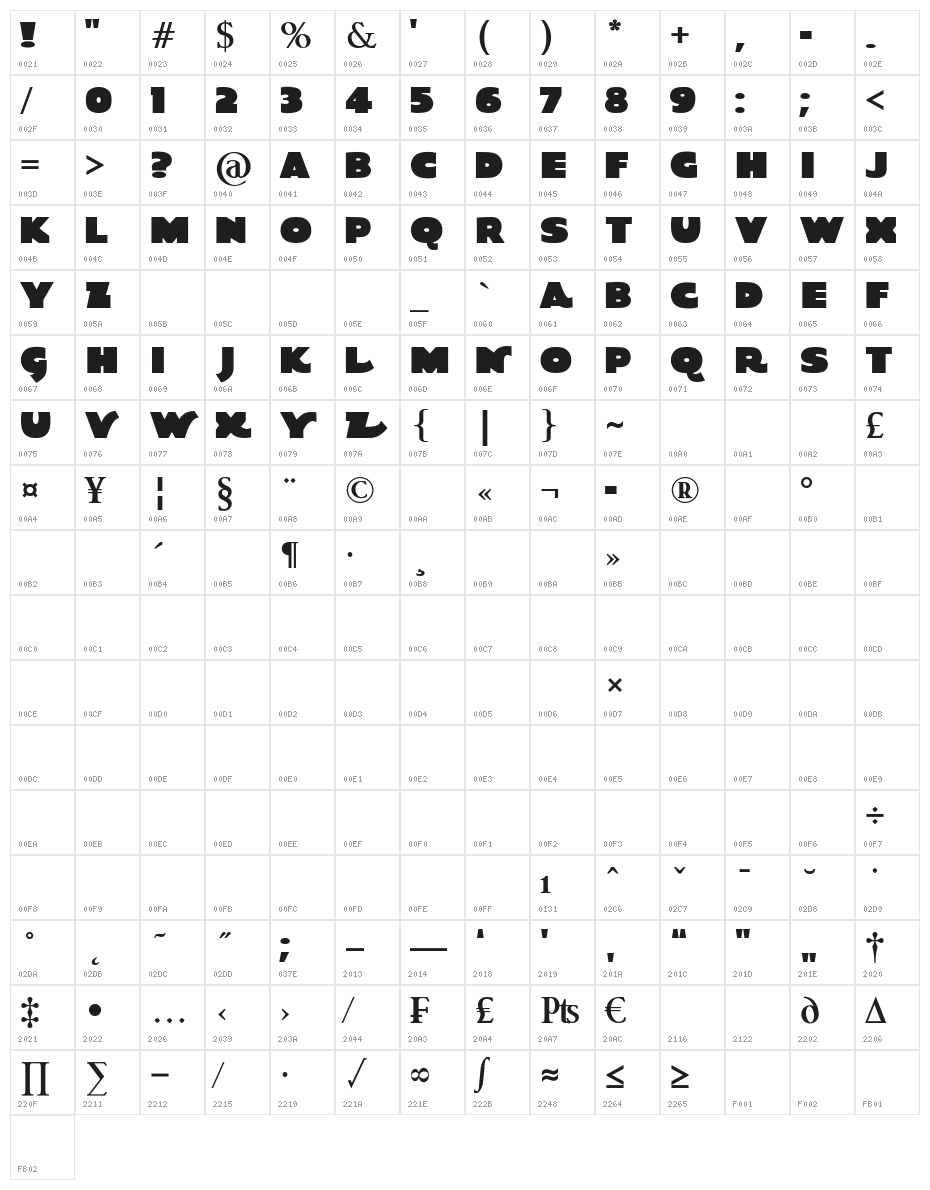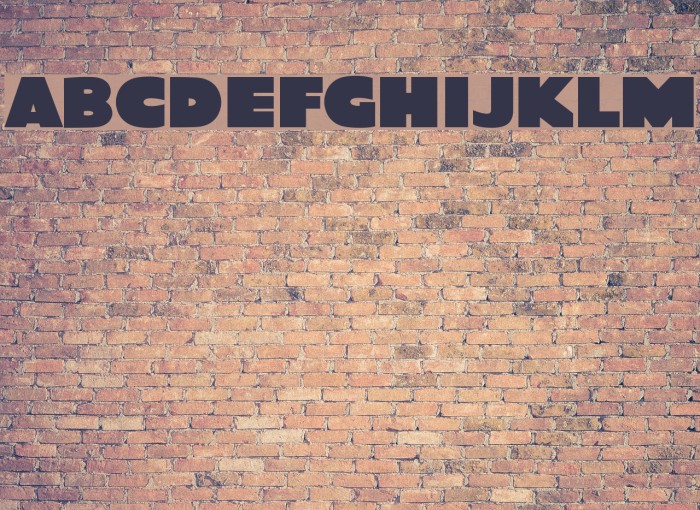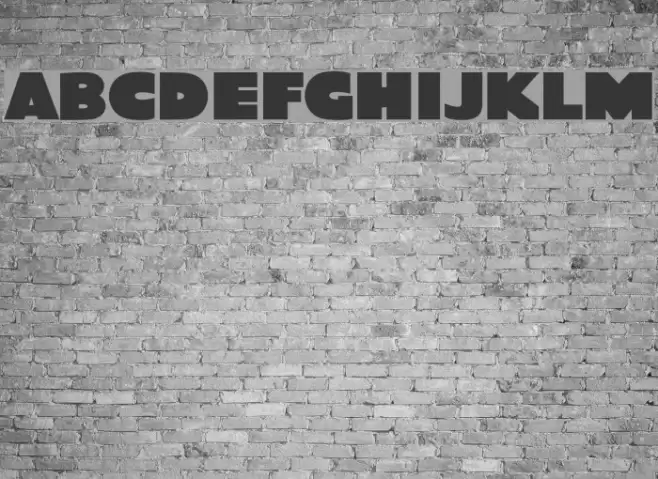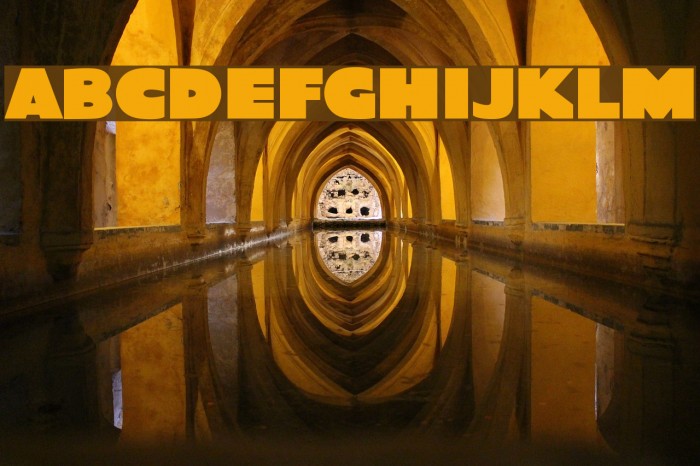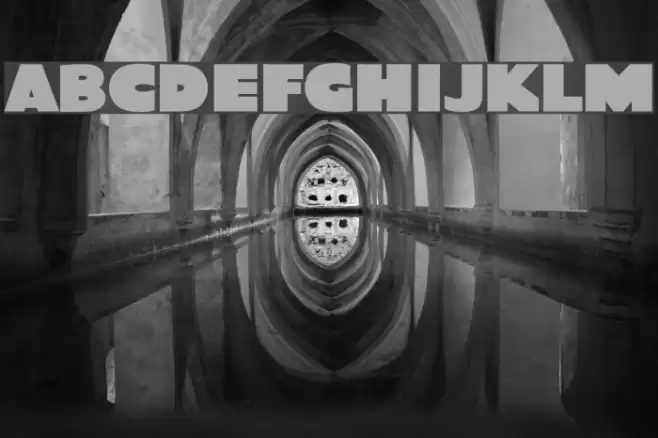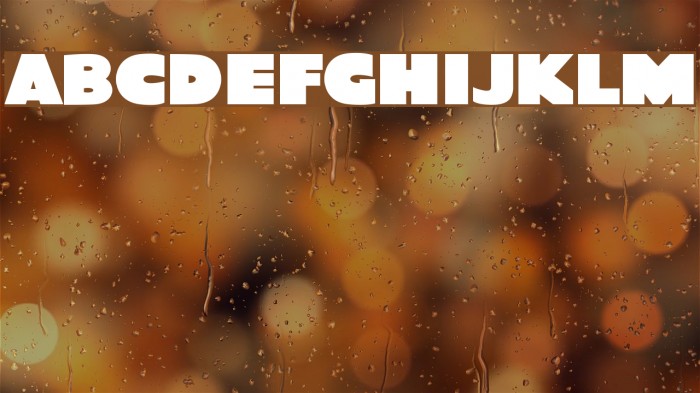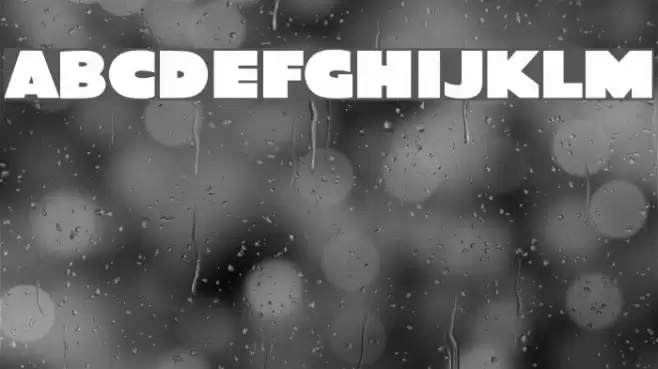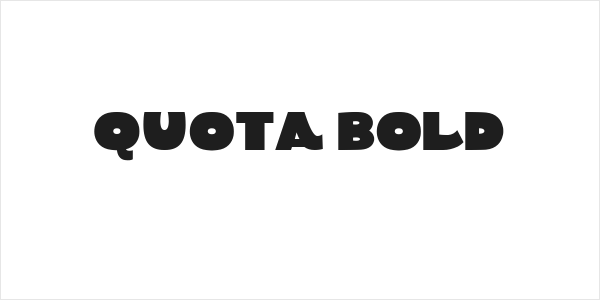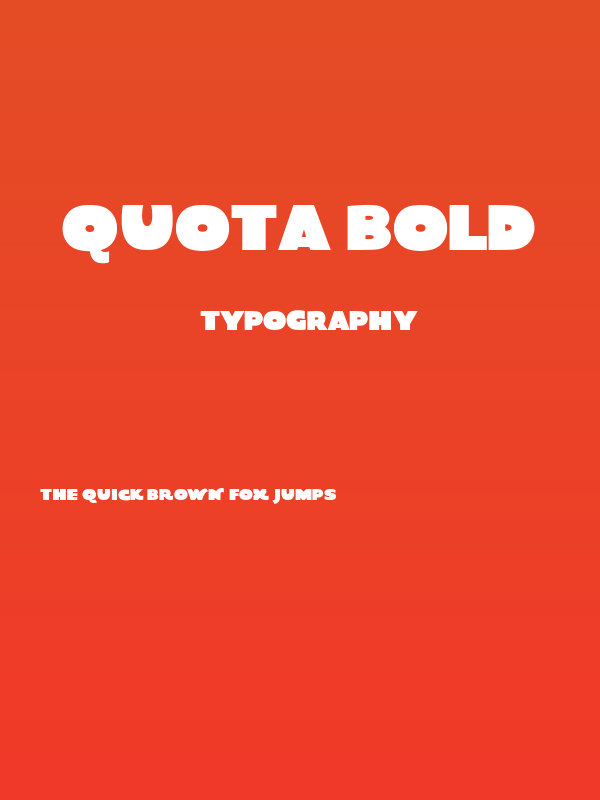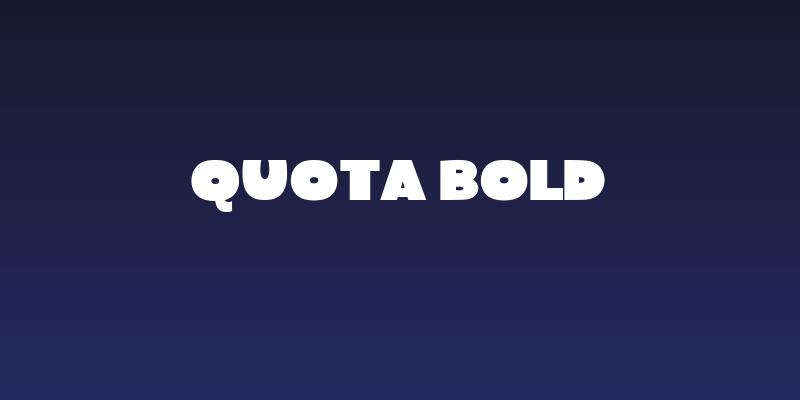
Quota Bold Font
Quota Bold Description
This font features a bold and impactful style with thick, uniform strokes that convey strength and assertiveness. The characters are wide and have a slightly condensed appearance, giving them a powerful presence on the page. The uppercase letters are particularly striking, with a geometric influence that adds a modern touch. The lowercase letters maintain the same boldness, ensuring consistency across text. Numbers and special characters are equally robust, making them suitable for attention-grabbing designs. This font's strong visual weight and clear legibility make it ideal for headlines and display purposes.